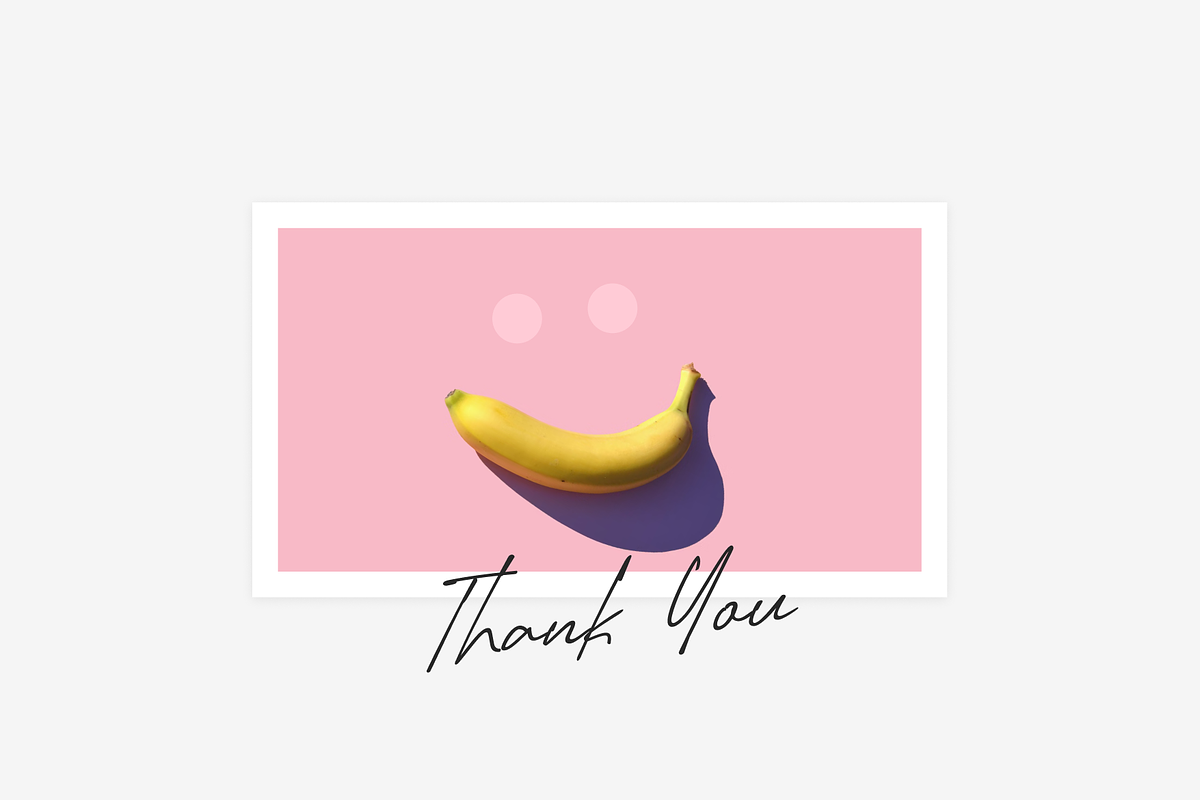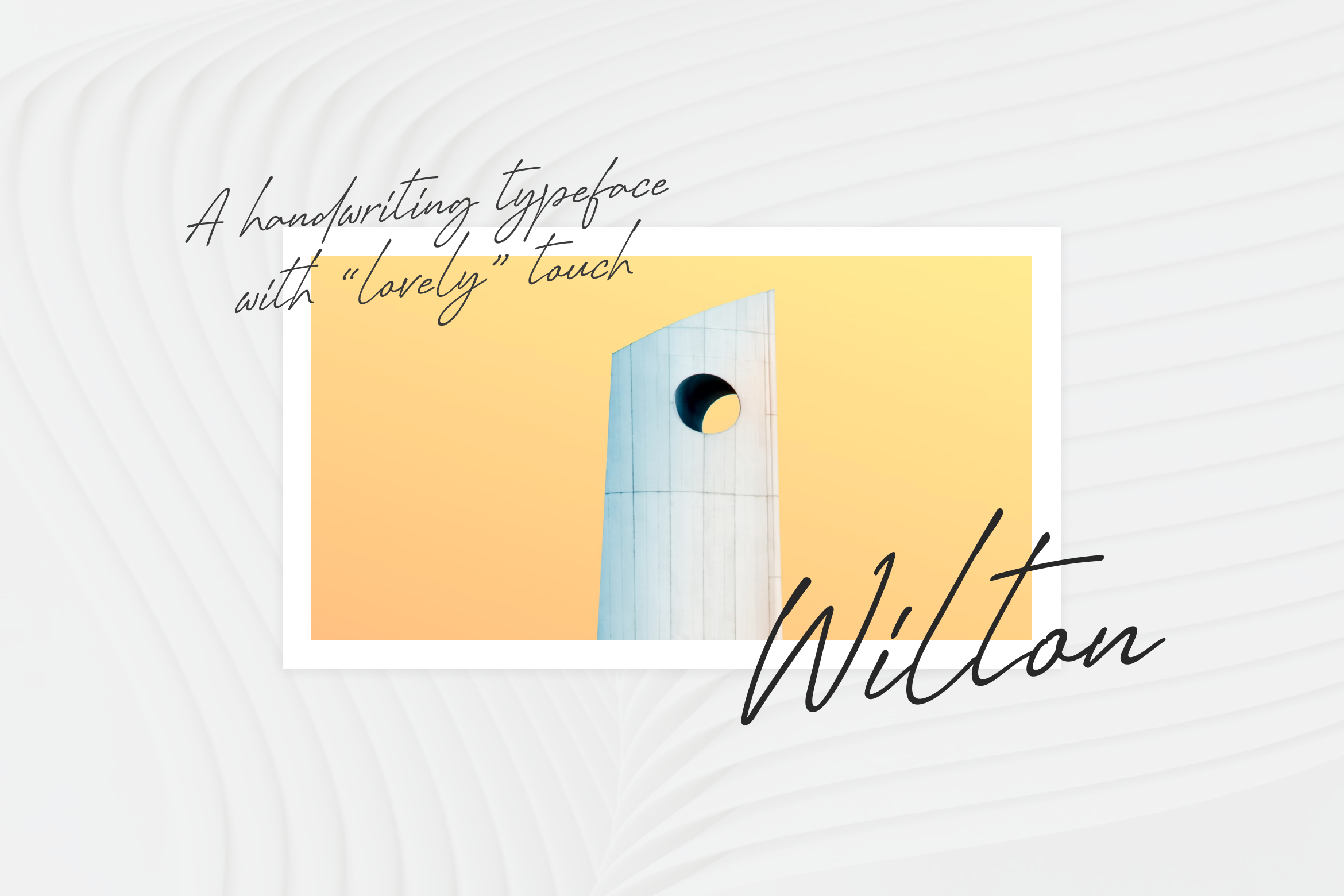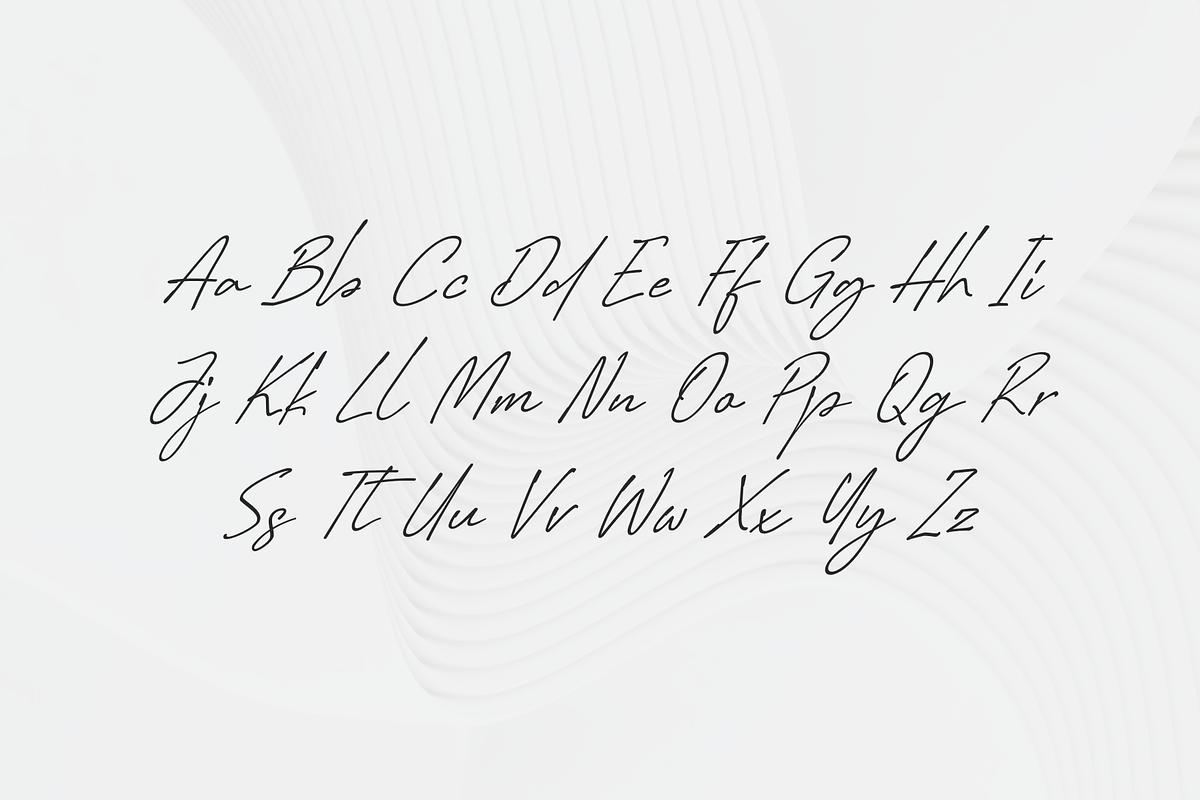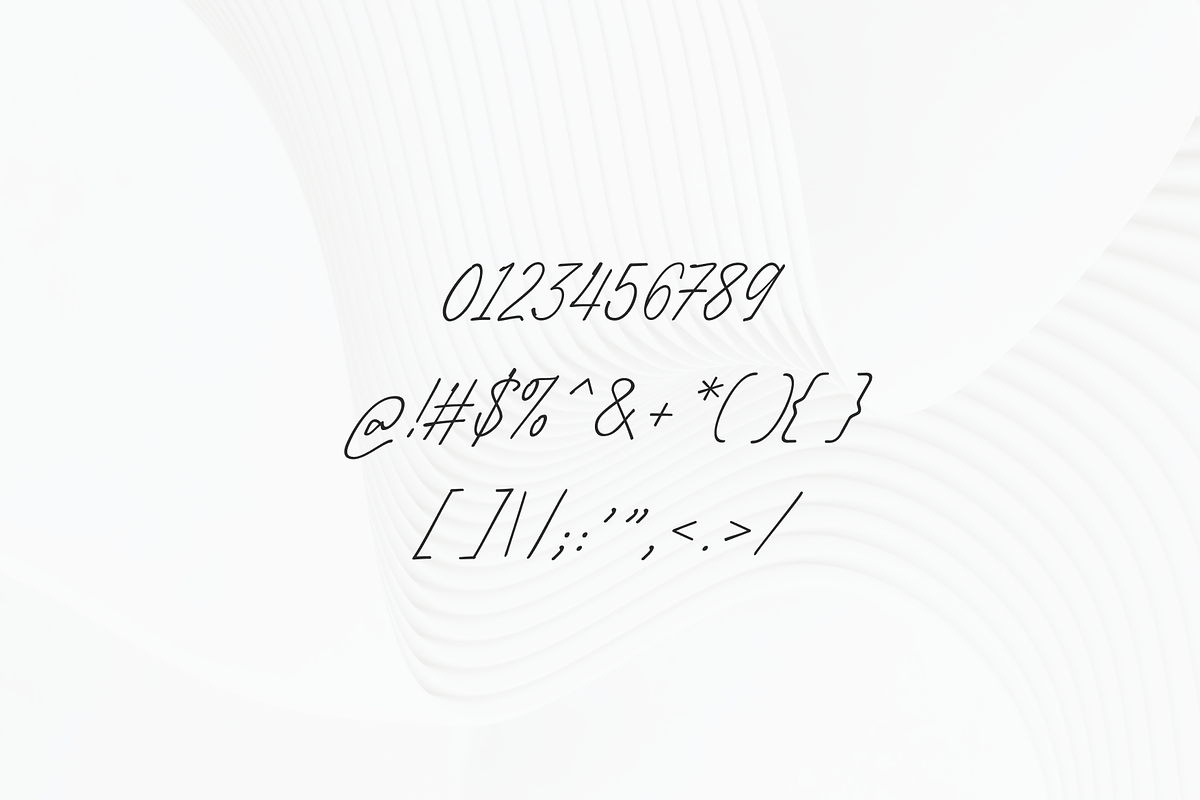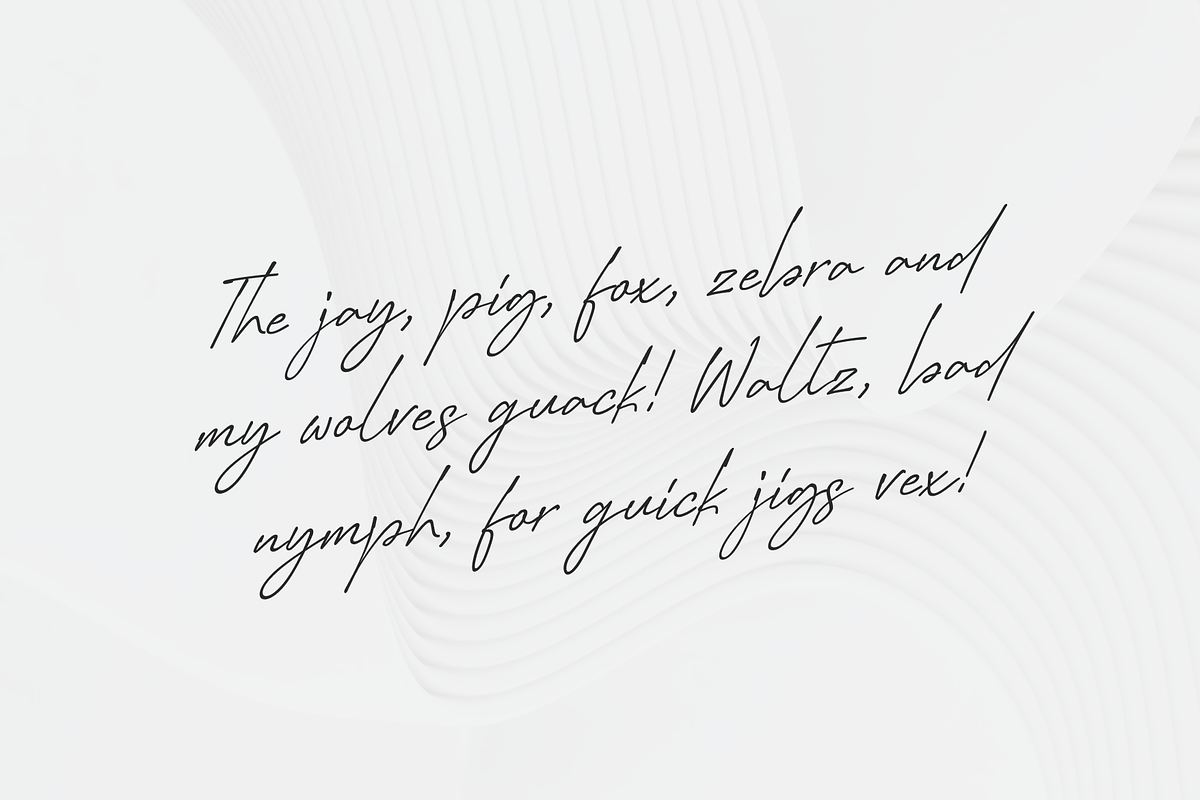
Wilton - Handwriting Font
Wilton Typeface embodies a delightful fusion of untamed spirit and refined elegance, capturing the essence of wild romance and playful charm with its whimsical strokes and graceful curves. Crafted with meticulous attention to detail, it exudes spontaneity and warmth, akin to handwritten love notes under moonlit skies. Its fluid lines infuse designs with enchantment, making it perfect for wedding invitations, greeting cards, and branding materials, adding a touch of sophistication to any project.